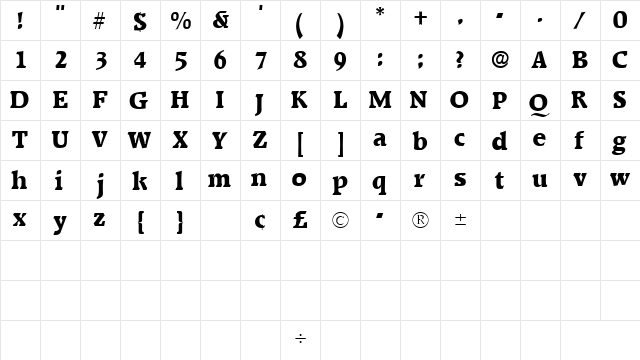
KaroaSSK Regular
Design Context for KaroaSSK Typeface
KaroaSSK is a composed and adaptable typeface that performs quietly and consistently across a wide range of design contexts.